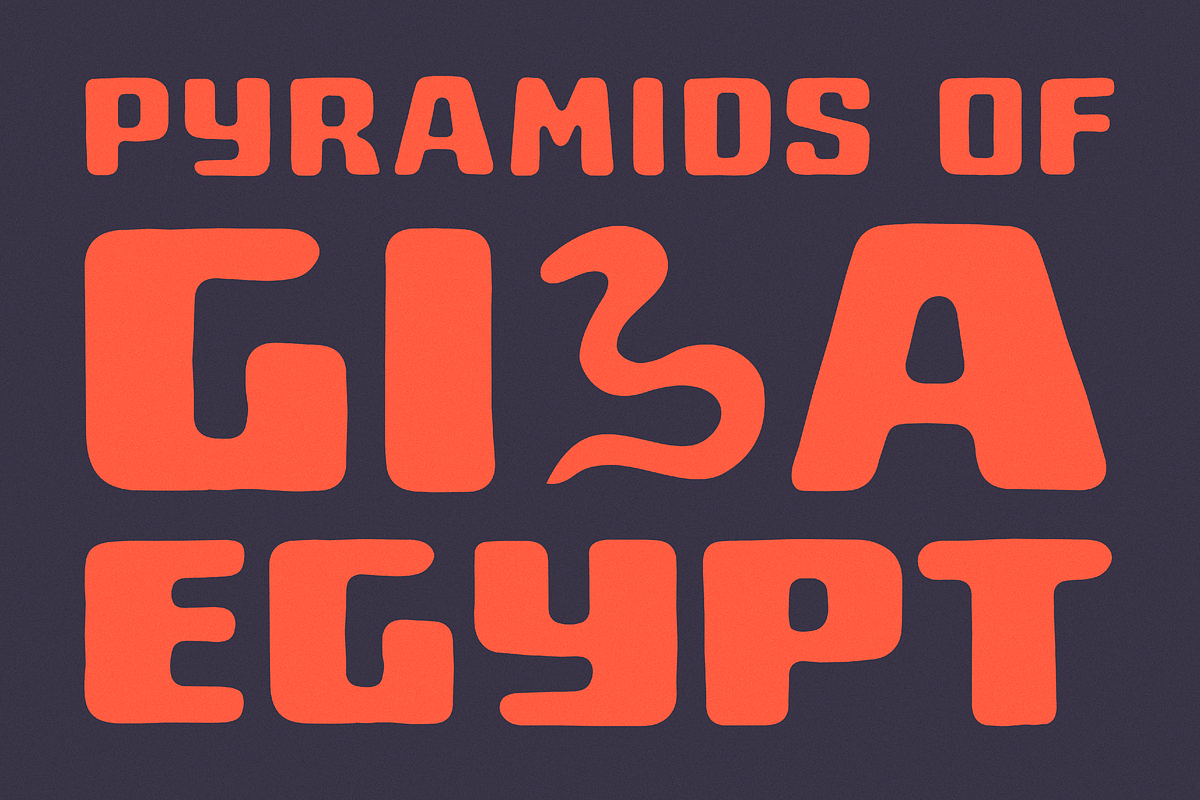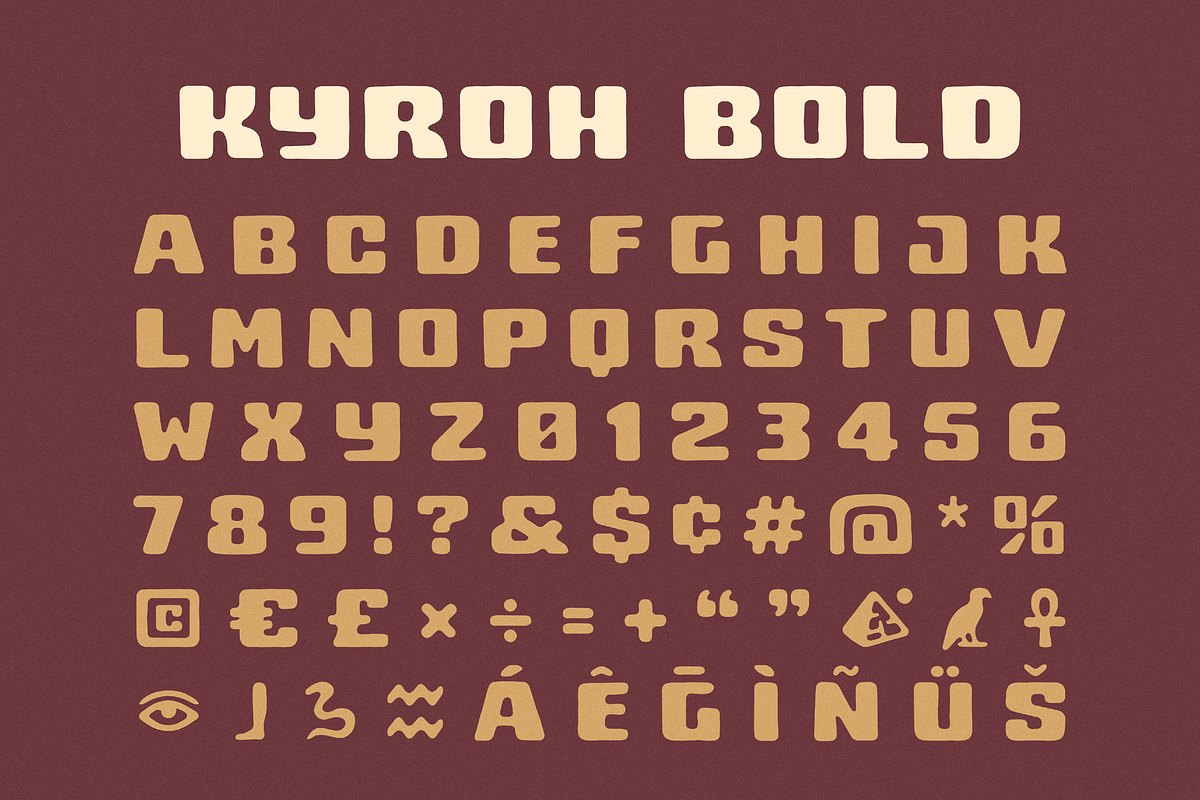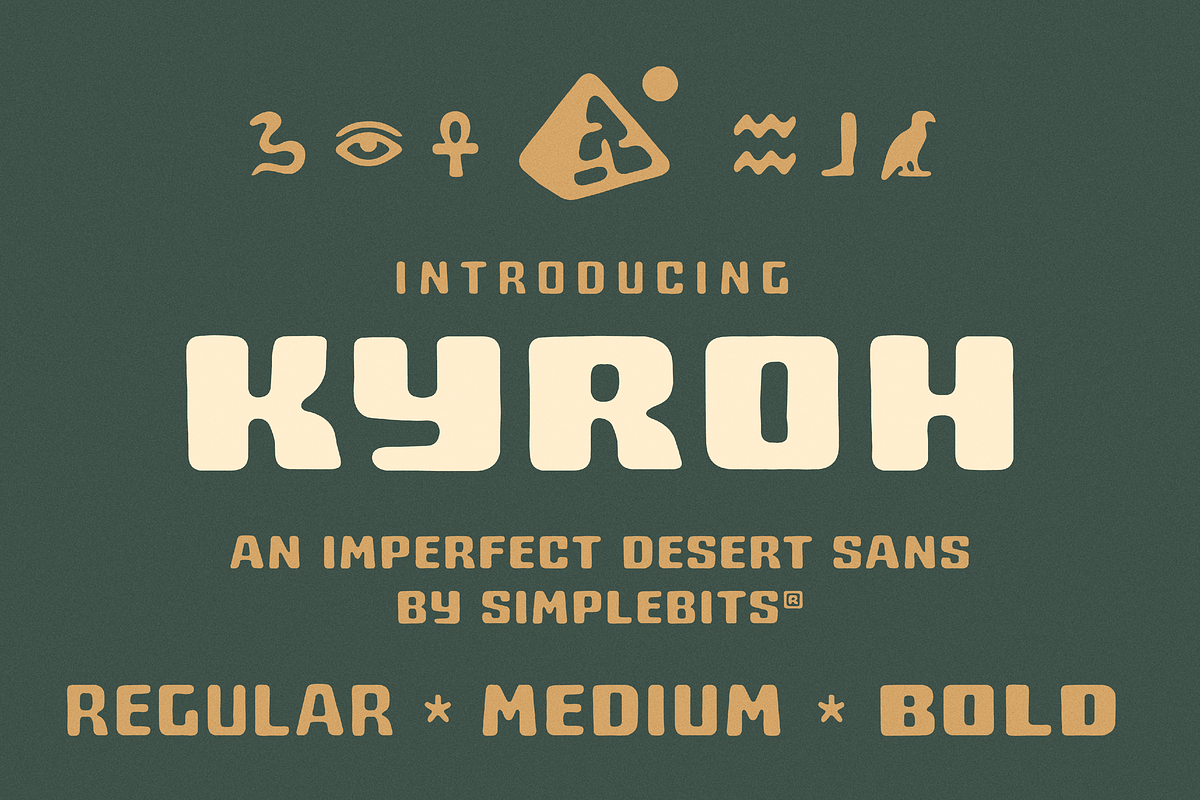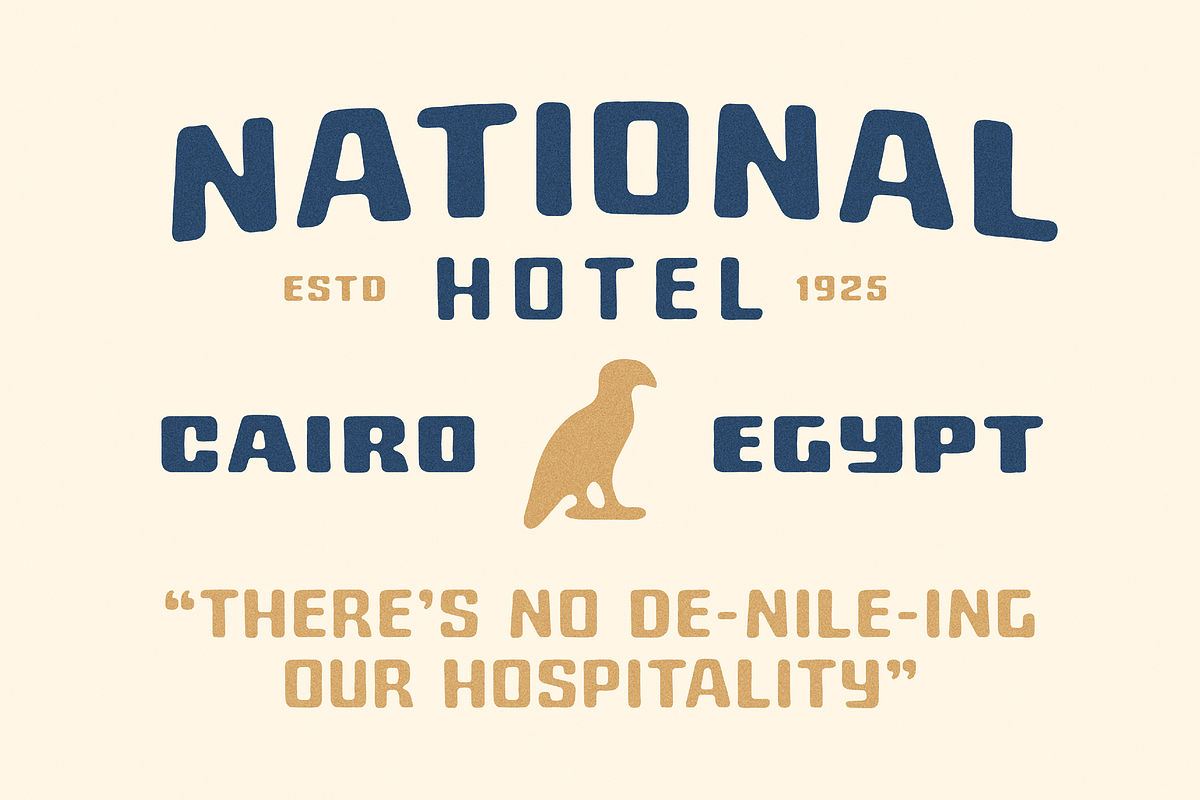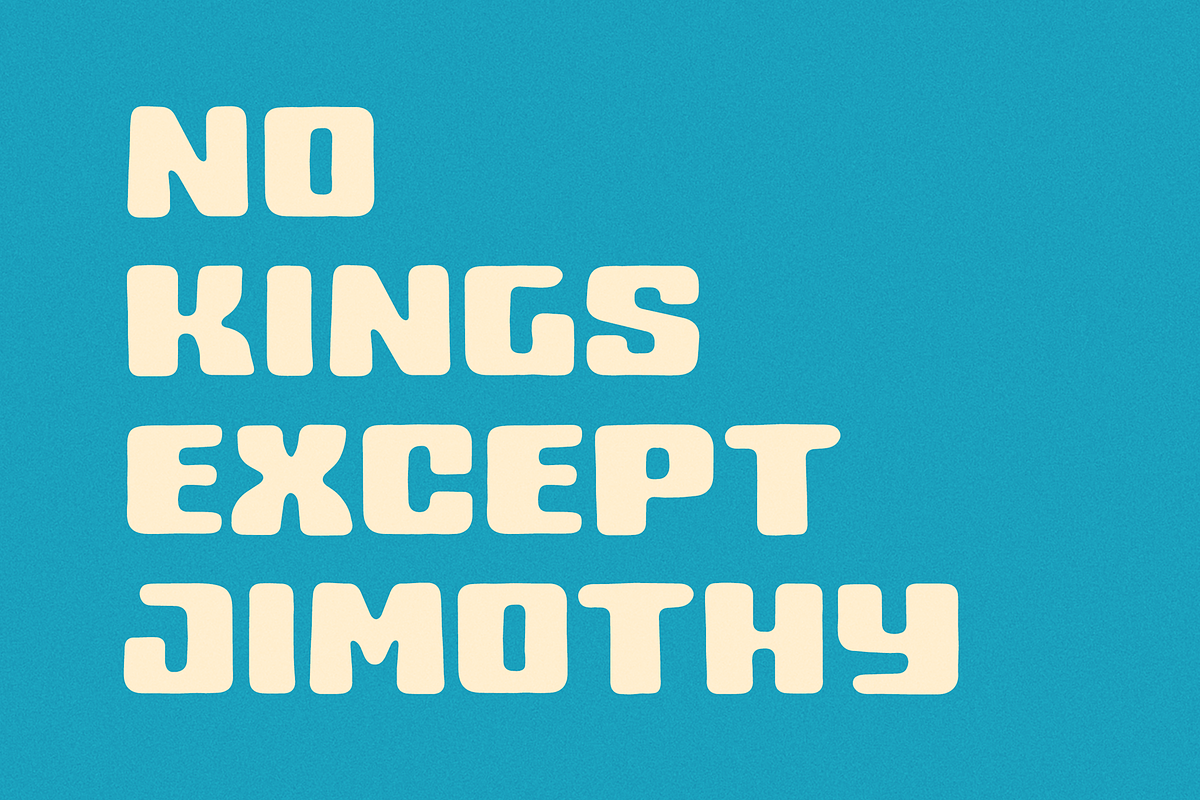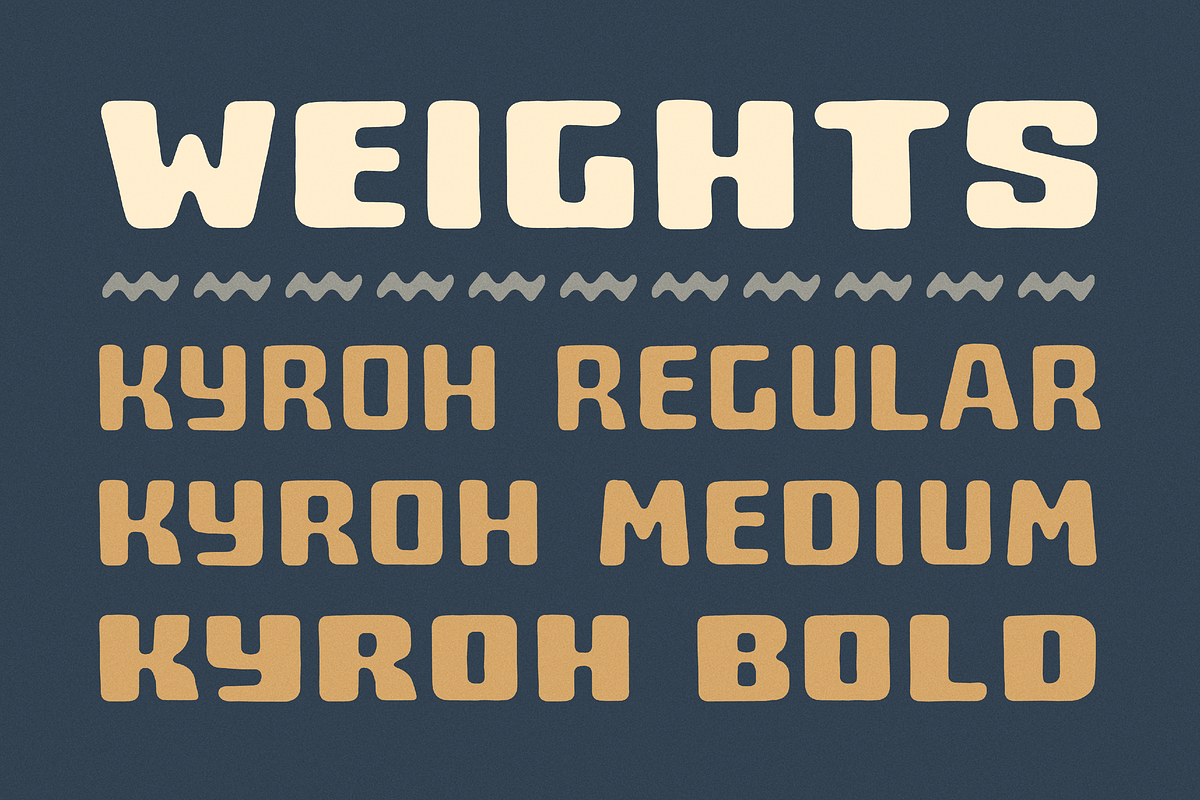
Kyroh — Vintage display sans
Kyroh is an all-caps, sans-serif display font inspired by a vintage luggage label from the National Hotel in Cairo, Egypt (found in the amazing book from Letterform Archive).
I riffed off the hand-lettered word “EGYPT” from the label and filled out the rest of the alphabet informed by those five letterforms. I love how wide and chunky the word was lettered, and the simplified G and lowercase-ish Y had me thinking of how the rest of the alphabet might play off of those imperfect, inky, rounded-but-rough shapes.
Kyroh comes in three weights: Regular, Medium, and Bold and has our standard extended language support with diacritics and additional glyphs. Plus! A few Egyptian icons based on some of the common hieroglyphics.